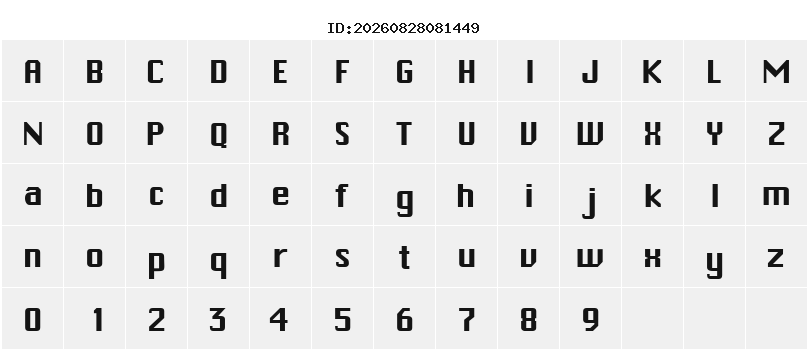
TrakkSSK Preview
• Font Name: TrakkSSK
• Full Font Name: TrakkSSK
About TrakkSSK.ttf
TrakkSSK.ttf is a modern, elegant sans-serif font designed for ultimate readability and visual harmony. Perfect for branding, headlines, web design, and print materials.